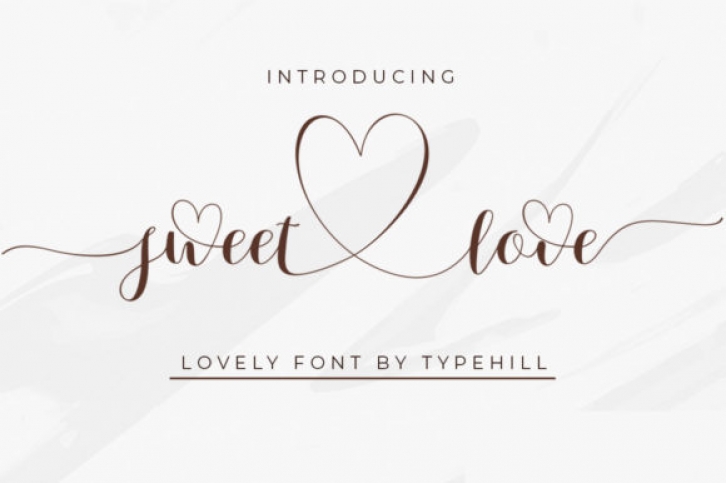
Sweet Love is a cursive and beautiful hand brushed font. It looks lovely on quotes, greeting cards, logos, business cards and every other design which needs a personalized touch.